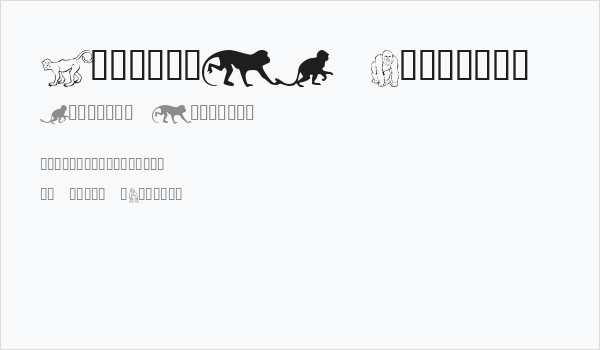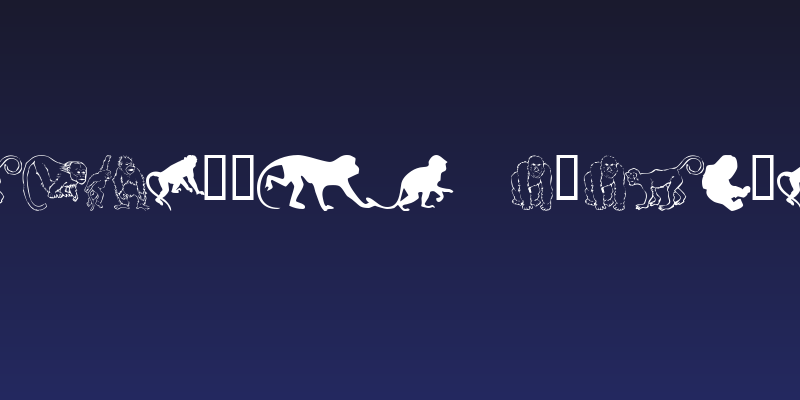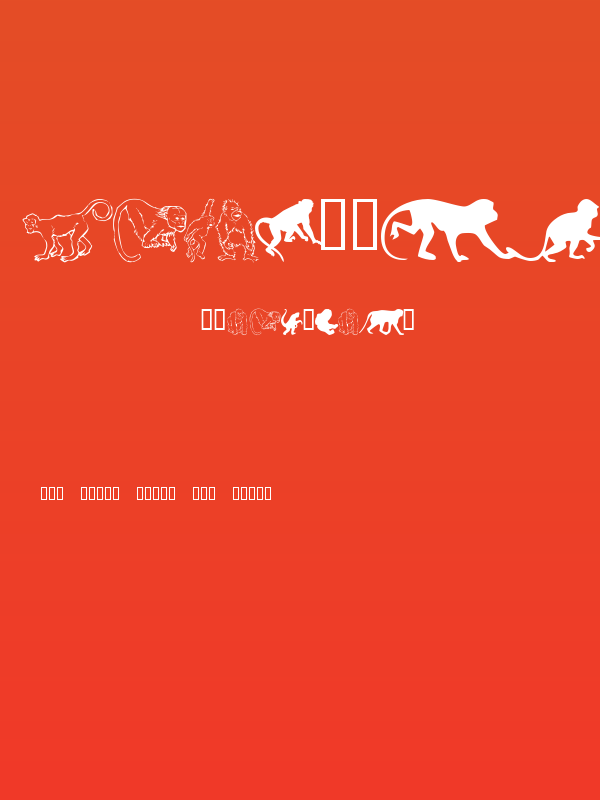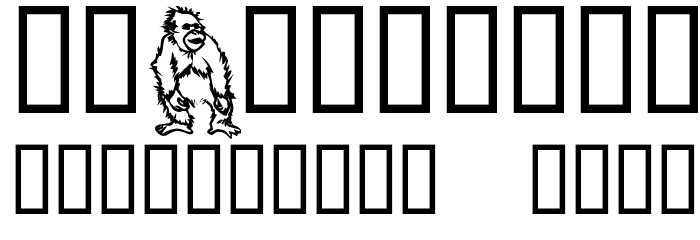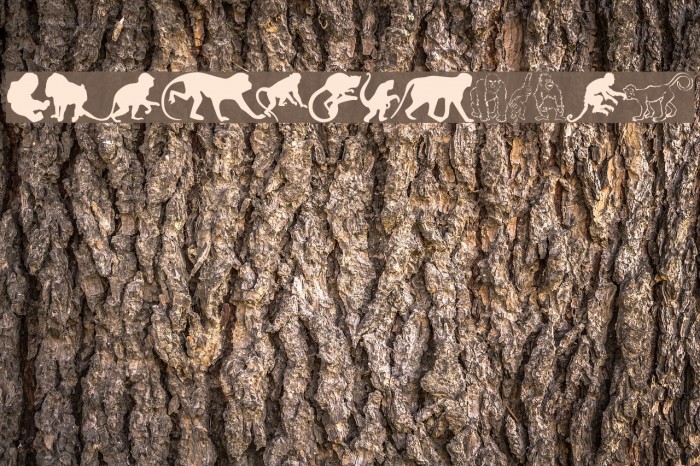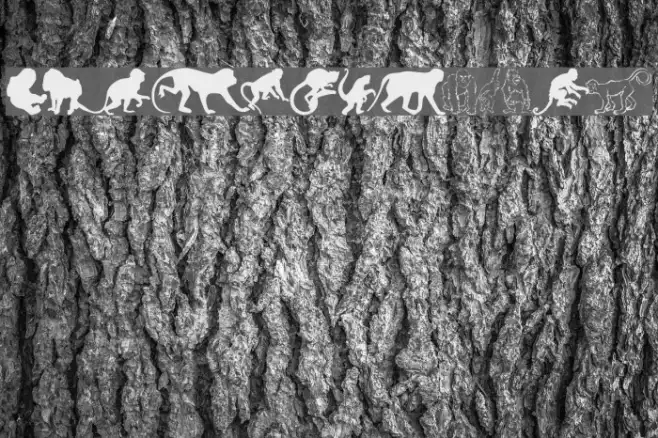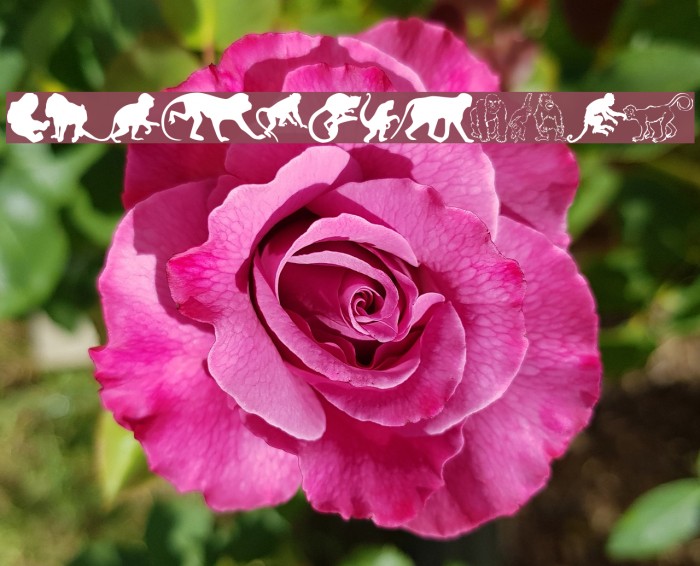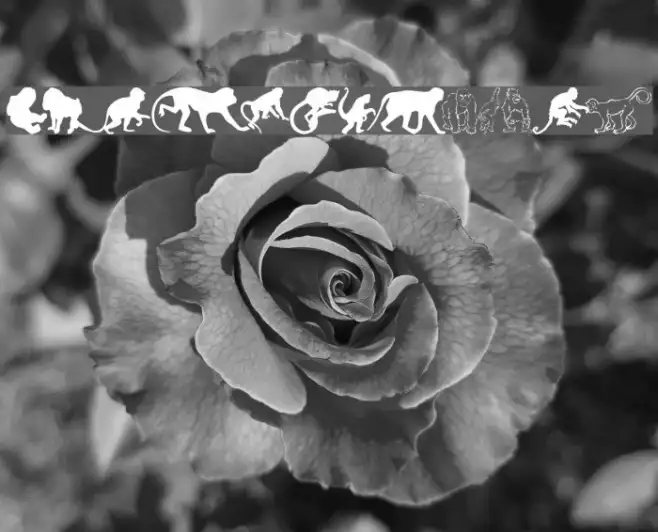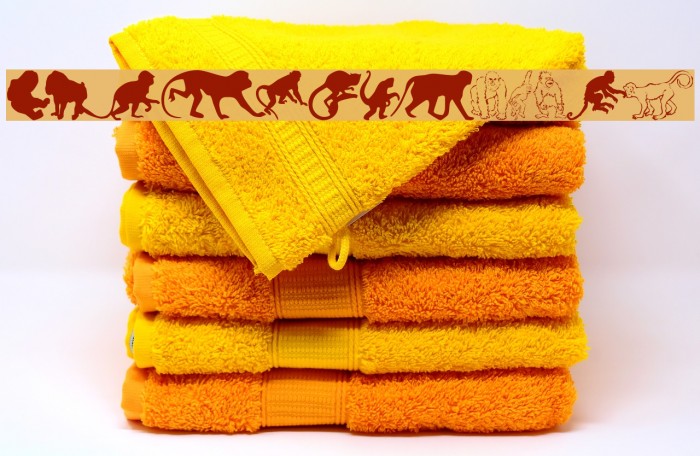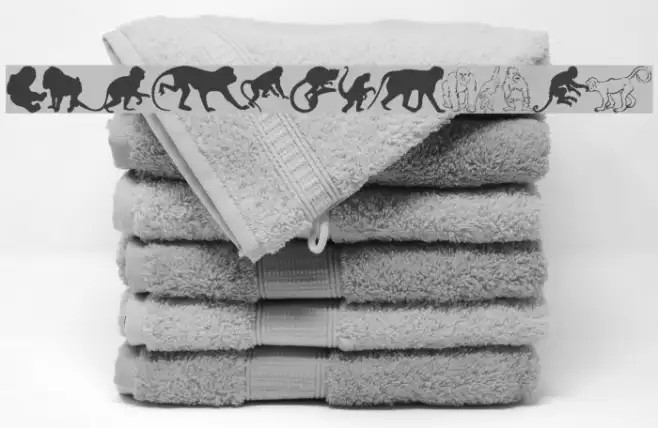
MonkeysDC Primates Font
MonkeysDC Primates Description
A decorative dingbat font featuring various illustrated silhouettes and line drawings of monkeys and primates in different poses and styles, ranging from playful to realistic.
| Overall Style | Decorative, Playful |
| Use Case | Illustrative elements, icons, themed graphics |
| Proposed Projects | Children’s books, educational materials, animal-themed party invitations, playful branding, wildlife posters. |